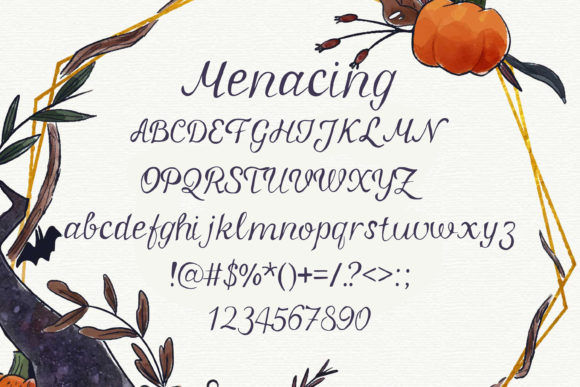
Introduction to Menacind Font
Have you ever stared at a blank canvas, waiting for that perfect spark to ignite your creativity? For designers, this moment is all too familiar. It’s the moment when a well-chosen font can make all the difference between a good design and a great one. And that’s exactly where the Menacind Font comes in – a delicate, elegant, and flowing handwritten font that’s about to take your creative project to the next level.
Whether you’re a seasoned designer or just starting out, the Menacind Font is a valuable addition to your design resource arsenal. With its beautiful and well-balanced characters, it’s the perfect match for a wide range of designs, from wedding invitations to branding materials. And the best part? It’s available for free download, making it an accessible choice for designers of all levels.
- Designed with a unique, modern aesthetic, making it perfect for contemporary design projects
Honest Review: Menacind Font
I recently came across the Menacind Font while searching for a free download to enhance a creative project. I was drawn to its unique and edgy design, which is perfect for making a statement in a bold, eye-catching way.
- ⚠️ The font may not be suitable for all types of creative projects, particularly those requiring a more subtle or elegant look.
- ⚠️ Some users may find the font’s edgy design overwhelming or difficult to read.
Overall, I think the Menacind Font is a great addition to any designer’s toolkit. While it may not be perfect for every project, it’s a fantastic resource for those looking to add some high-quality, bold flair to their design work.
The Menacind Font has a transparent background, making it perfect for designs that require a clean and minimalist look. You can use it to create logos, graphics, or other visual elements with ease.